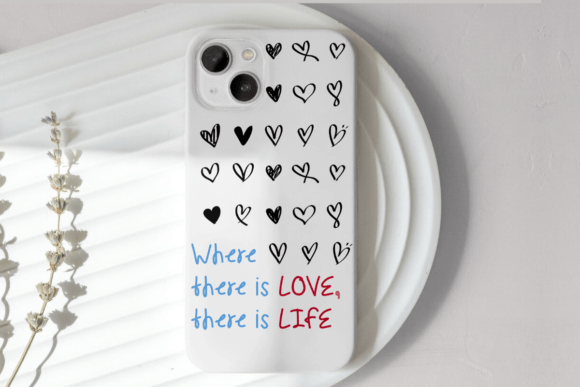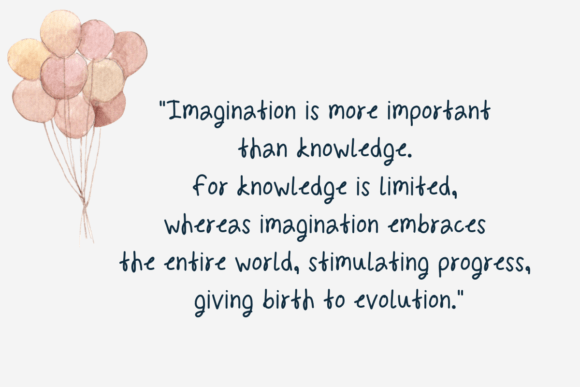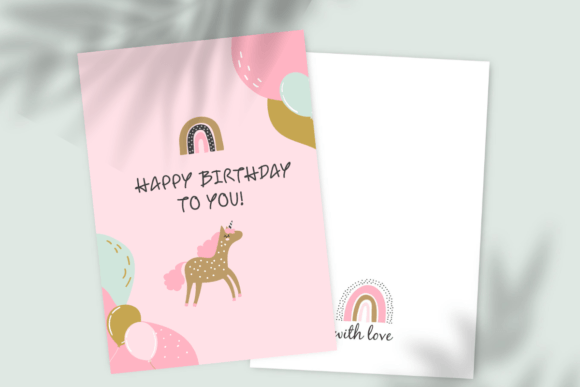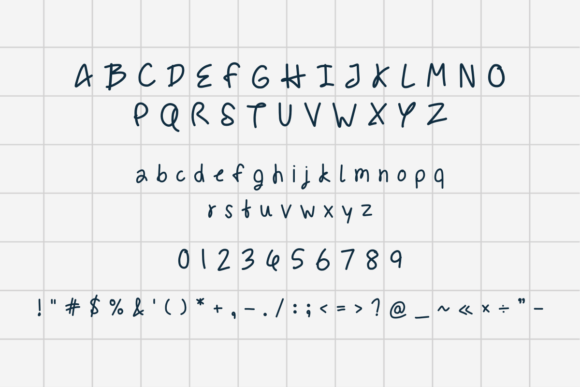
Introducing Amusement Font: Elevate Your Designs with Elegance and Sophistication
Are you a designer or crafter looking for a font that exudes elegance and sophistication? Look no further than Amusement Font, a stylish and very elegant handwritten font that is sure to take your designs to the next level. With its beautiful, flowing script and versatile uses, Amusement Font is the perfect addition to any design project that calls for a handwritten touch.
What is Amusement Font?
Amusement Font is a carefully crafted handwritten font that boasts a unique and stylish aesthetic. Its elegant and refined appearance makes it an ideal choice for a wide range of design applications, from wedding invitations and thank you cards to quotes, greeting cards, logos, business cards, and more.
Key Features of Amusement Font
- Elegant Handwritten Script: Amusement Font features a beautiful, flowing script that is both elegant and refined.
- Versatile Uses: This font is perfect for a wide range of design applications, including wedding invitations, thank you cards, quotes, greeting cards, logos, business cards, and more.
- Easy to Read: Despite its elegant appearance, Amusement Font is easy to read, making it perfect for both digital and print designs.
- Scalable: This font is highly scalable, ensuring that it looks great at any size.
Amusement Font is a must-have for designers and crafters who want to add a touch of elegance and sophistication to their designs. Whether you’re creating wedding invitations, greeting cards, or other paper crafts, this font is sure to impress. Its versatility and ease of use make it an ideal choice for both beginners and experienced designers.
- Wedding Invitations: Create beautiful and elegant wedding invitations that set the tone for the big day.
- Greeting Cards: Add a touch of elegance to your greeting cards, whether it’s for a birthday, anniversary, or holiday.
- Quotes and Posters: Use Amusement Font to create inspiring quotes and posters that are sure to grab attention.
- Logos and Branding: Create a unique and memorable logo for your business or brand using Amusement Font.
Tips for Getting the Most Out of Amusement Font
Here are a few tips for getting the most out of Amusement Font:
- Experiment with Different Sizes: Amusement Font looks great at a variety of sizes, so don’t be afraid to experiment to find the perfect size for your design.
- Pair with Other Fonts: Amusement Font pairs well with a variety of other fonts, so try pairing it with a bold font for added contrast.
- Use in Combination with Images: Amusement Font looks great in combination with images, so try using it to add text to your photos or illustrations.
Amusement Font is a stylish and elegant handwritten font that is perfect for designers and crafters who want to add a touch of sophistication to their designs. With its versatile uses and ease of use, it’s an ideal choice for a wide range of design applications. Whether you’re creating wedding invitations, greeting cards, or other paper crafts, Amusement Font is sure to impress.